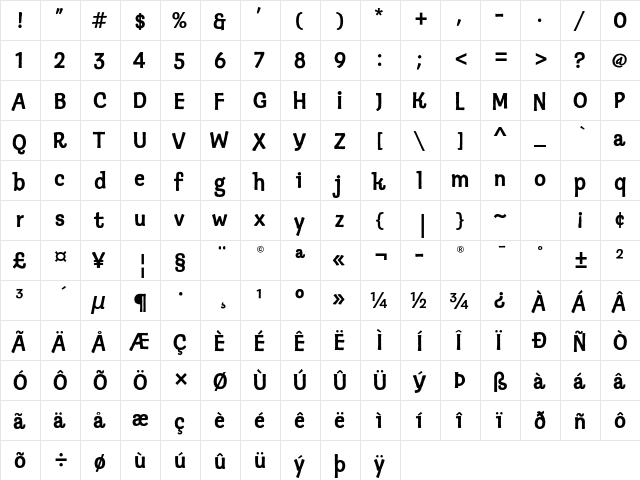
Klepto ITC Std Regular
| Designer | Phill Grimshaw |
Design Context for Klepto ITC Std Typeface
Klepto ITC Std takes a measured approach to typography — its balanced proportions and neutral character make it a reliable workhorse for both digital and print work.